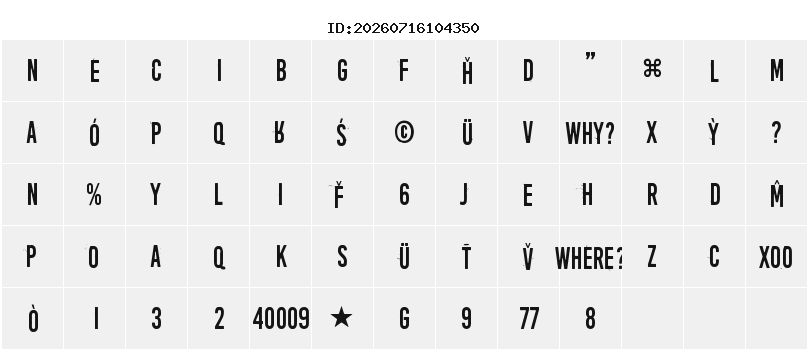
• Font Name: April Fools' Day Crazy vrs
• Full Font Name: April Fools' Day Crazy vrs
• Version: Version 1.00 April 1, 2016, initial release
About April Fools' Day Crazy vrs.ttf
April Fools' Day Crazy vrs.ttf is a modern, elegant sans-serif font designed for ultimate readability and visual harmony. Perfect for branding, headlines, web design, and print materials.